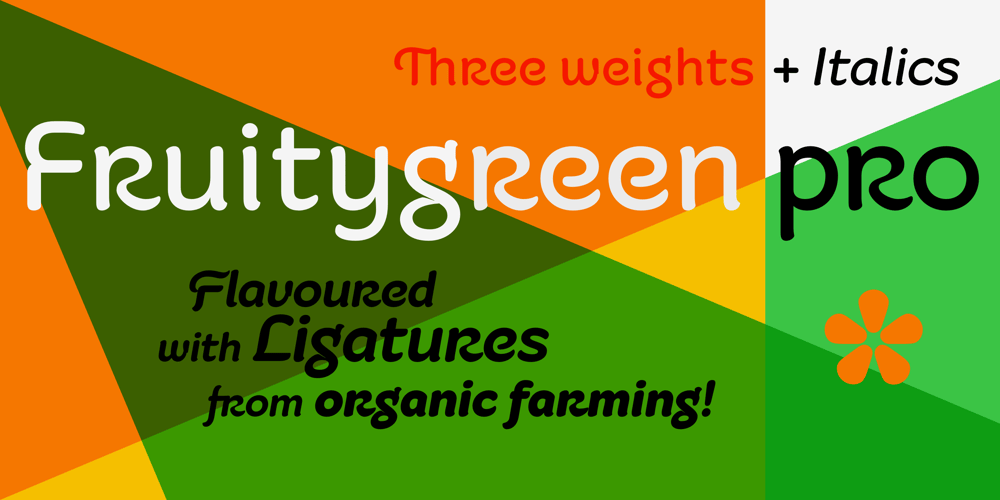
Fruitygreen Font Family was designed by Andi A. W. Masry and published by Linotype. Fruitygreen contains 6 styles and family package options. Fruitygreen is Indonesian designer Andi AW. Masry’s second typeface following Coomeec™. Idiosyncratic but appealing forms are the signature feature of Fruitygreen™ and provide this new typeface with its truly distinctive character that you can utilize for your projects – and not just in headlines. The unique forms of fruits are not only individually fascinating, but are just as captivating when they are brought together, for example as decoration on a dining table. For Masry, these can be compared with an alphabet whose letters spell out in combination different words and with this as his inspiration, he based his designs for Fruitygreen on the versatile forms of fruits. However, it was not the whole fruits as such but rather small sections of their curves and ends that he decided to use. It is not only because of the characteristic line terminals that the rounded characters of Fruitygreen seem at first glance reminiscent of a brush-written calligraphic typeface; these are traces of the creation process, in which Masry used a digital brush. At the same time, Fruitygreen is by no means simply a brush font. Its dynamic characters reference biological forms and there is definitely something amoeba-like about them, particularly in the bolder variants, and they exude the same serenity and harmony that is inherent to organic structures. The many unconventionally shaped characters also provide for optical contrast. There is, for example, the very scaled down g”, the open “q” and the lowercase “r”, which has the form of the capital letter. Other letters, such as the sinuous “k” and the rounded uppercase “F” impart an exotic touch to Fruitygreen. Similarly remarkable is the “@”, that has only a semi-circle. Available to the designer are other characters that can be used to accentuate a design, such as swash capitals and numerous ligatures. And, last but not least, there are also various numeral sets with oldstyle and lining figures for setting proportional text and table columns together with a selection of symbols, such as arrows and, appropriately, fruits. “